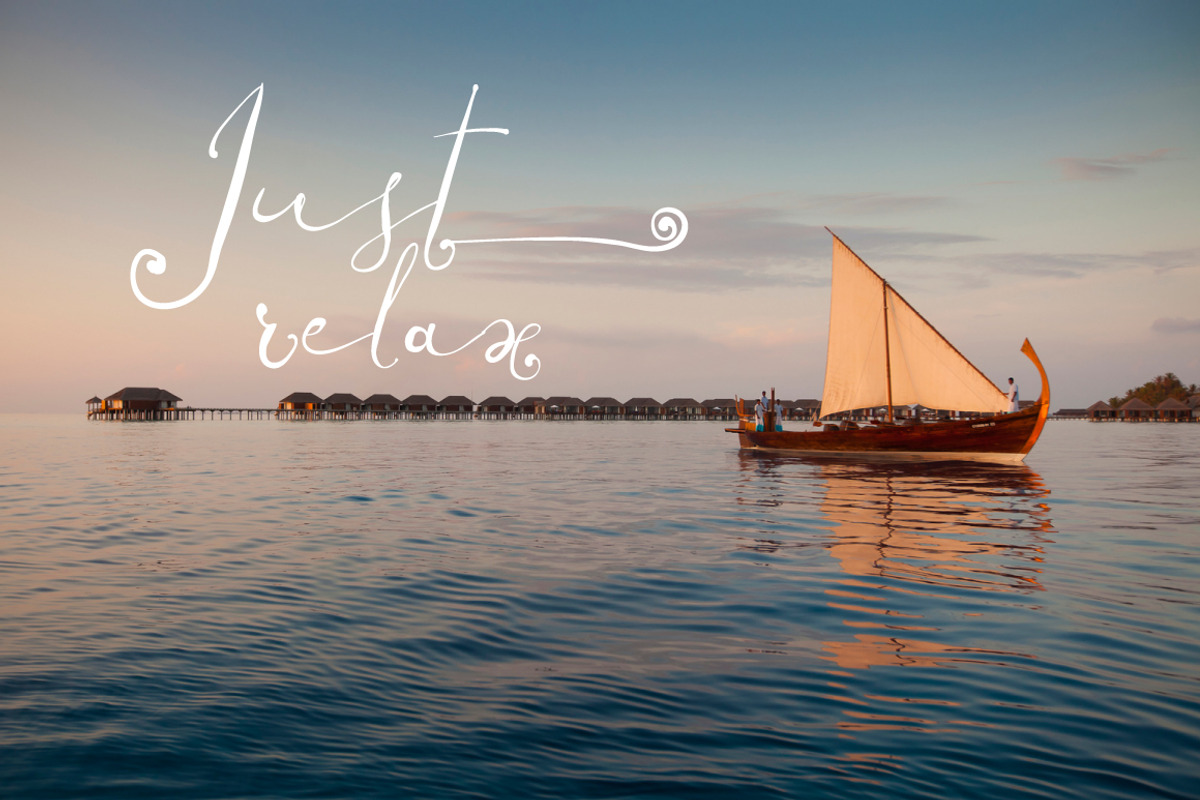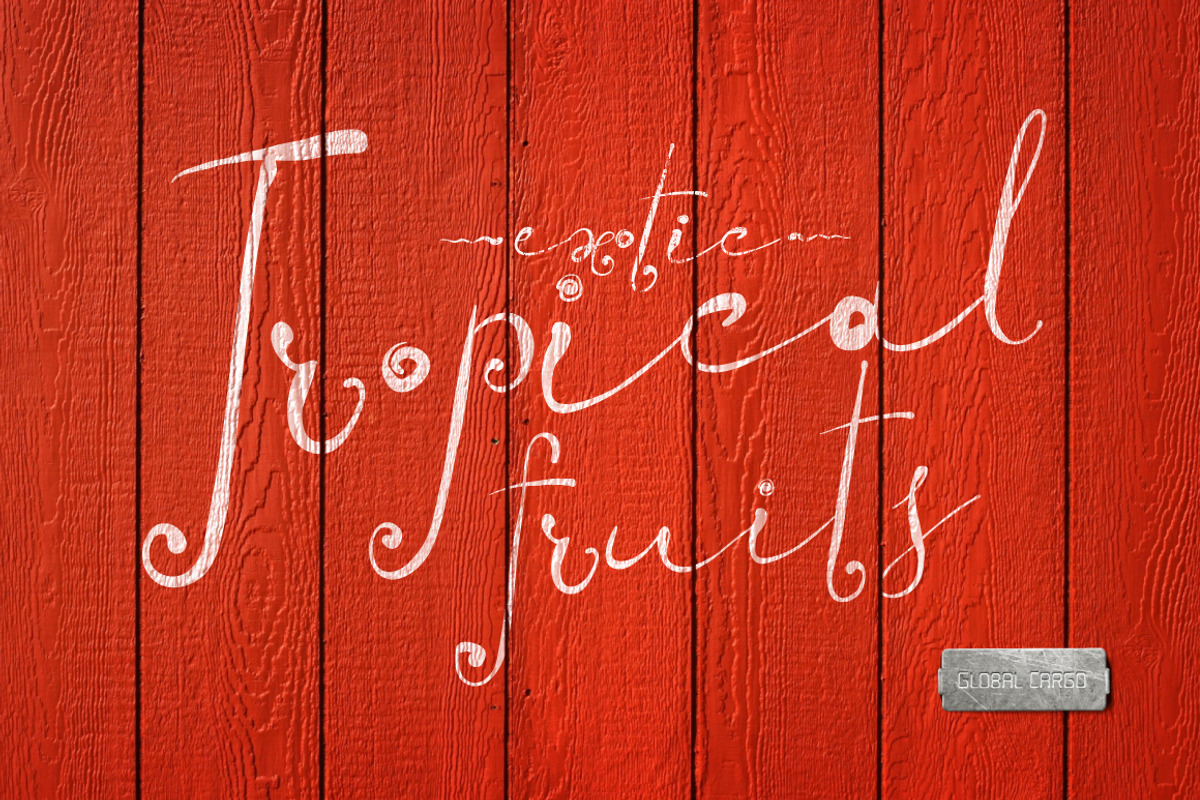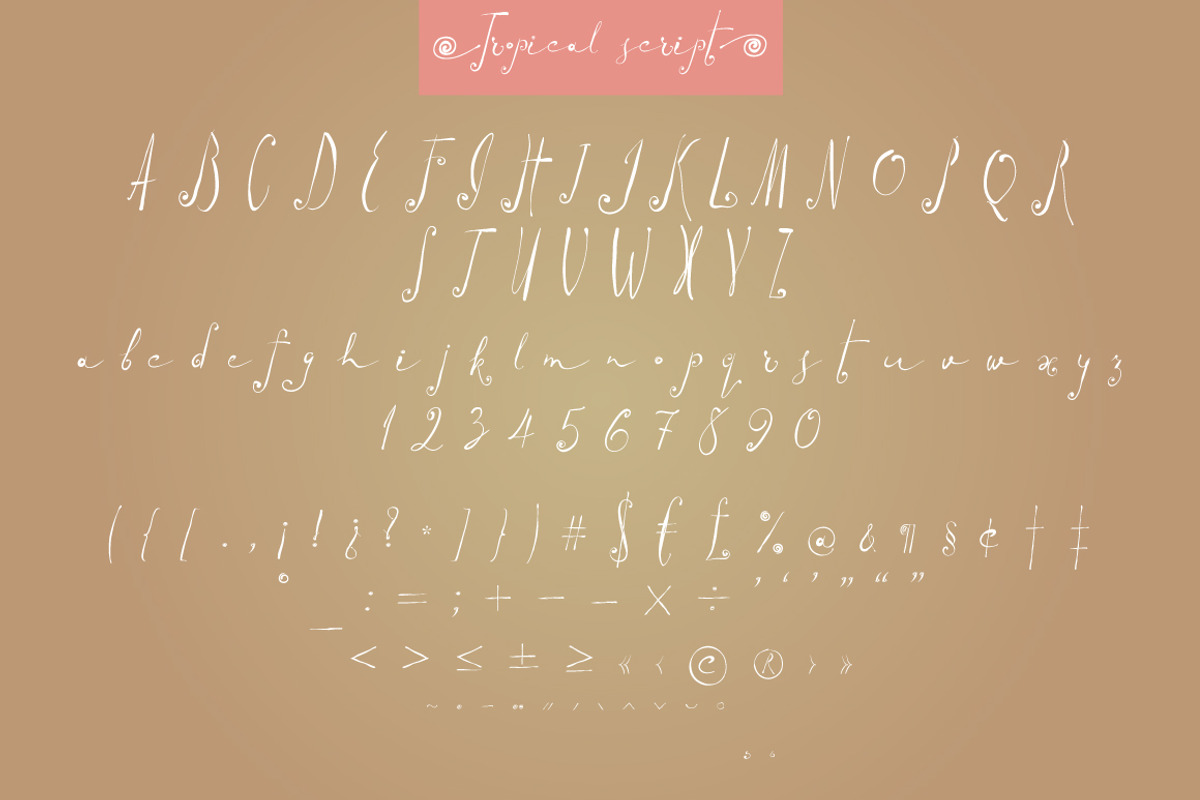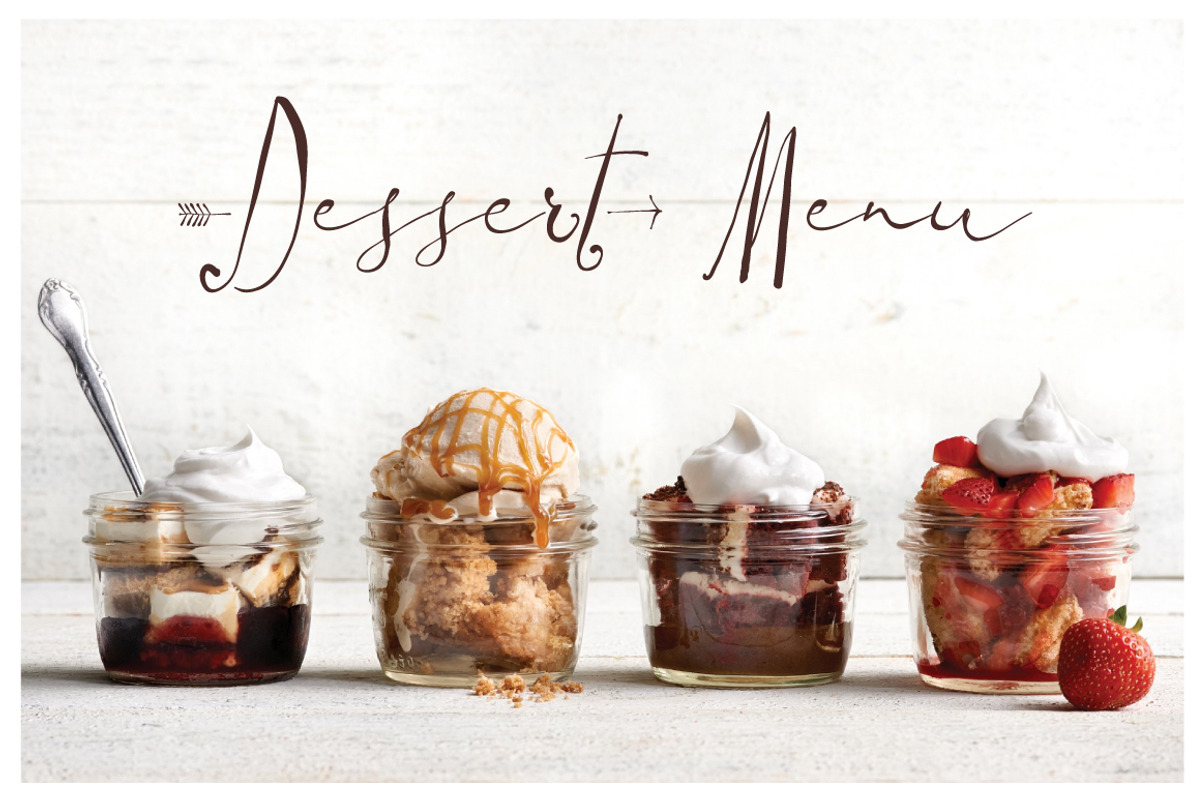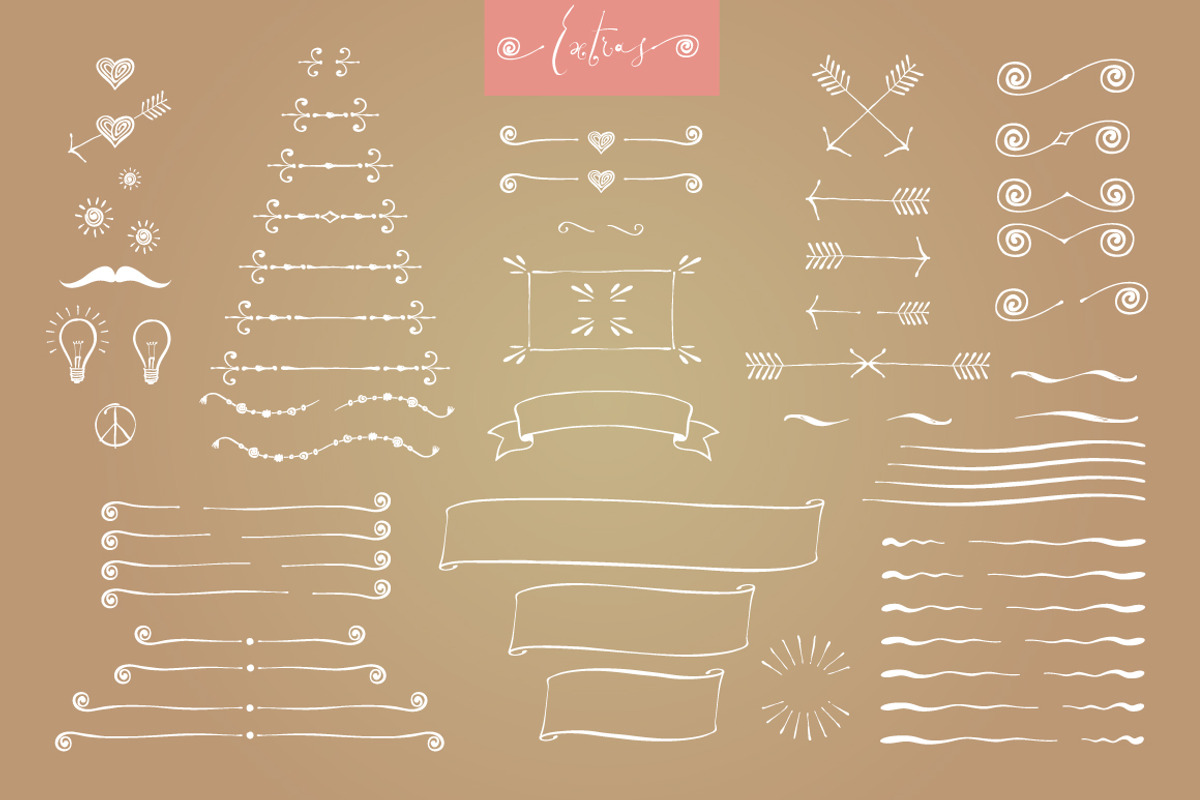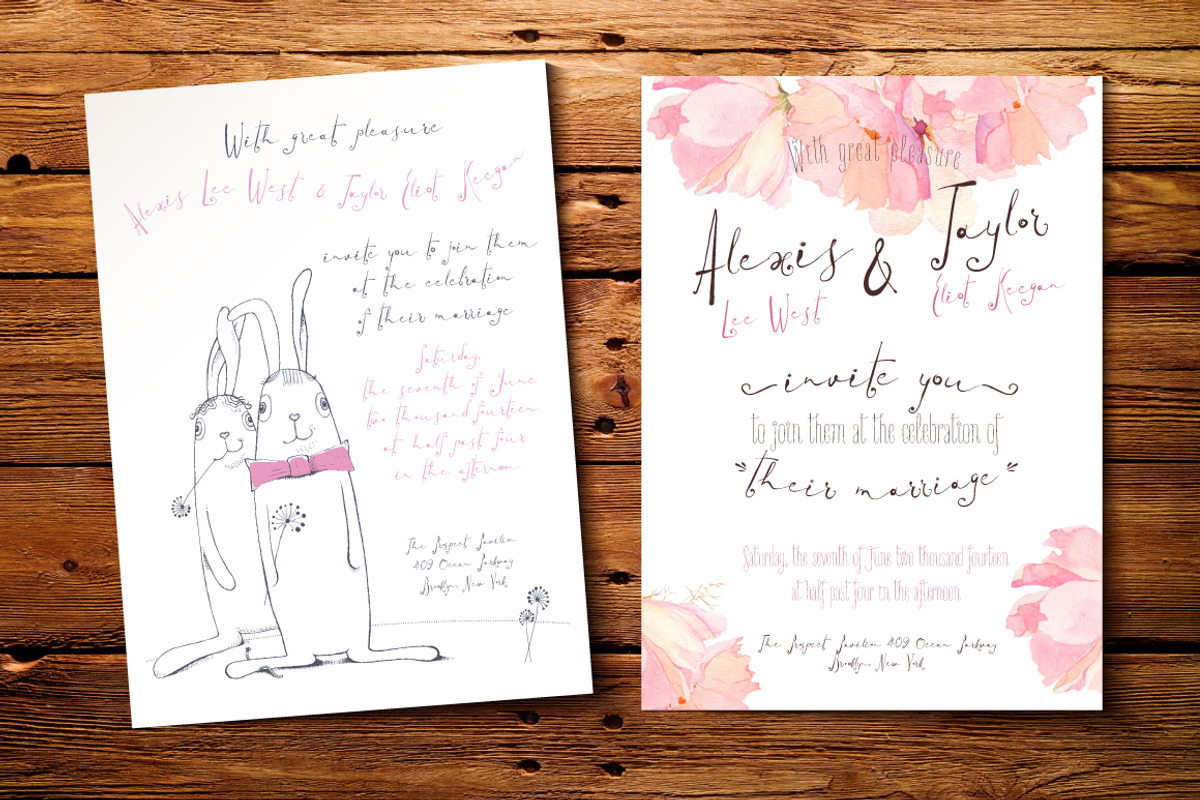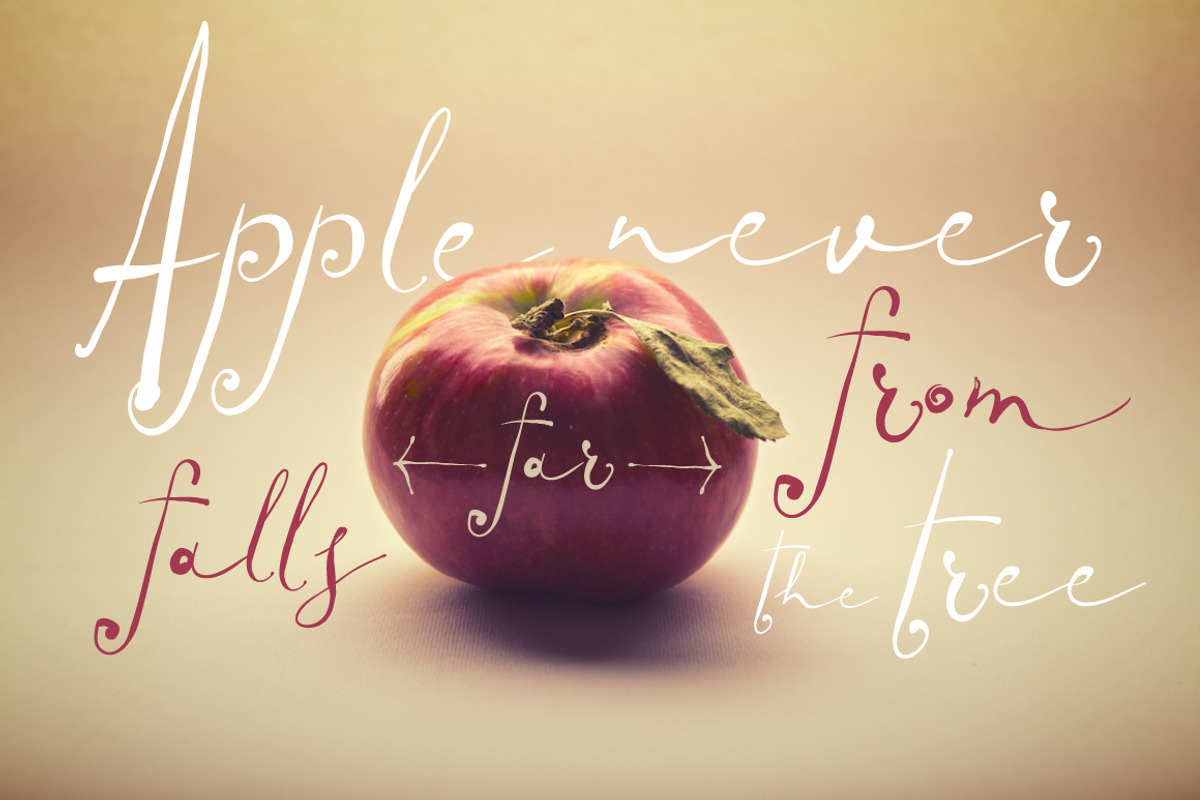
Tropical script + Paramaribo font
Tropical script + Paramaribo font by Fontop is a font selected for branding, posters, packaging, typography.
- The pack also includes my Paramaribo font which is perfectly combined with Tropical and gives you more creative opportunities.
- PARAMARIBO Light Condensed
- PARAMARIBO Light Condensed Italic
- Tropical Script Regular
Why Tropical script + Paramaribo font is worth a look
Tropical script + Paramaribo font by Fontop fits naturally into Branding, posters, packaging, typography.